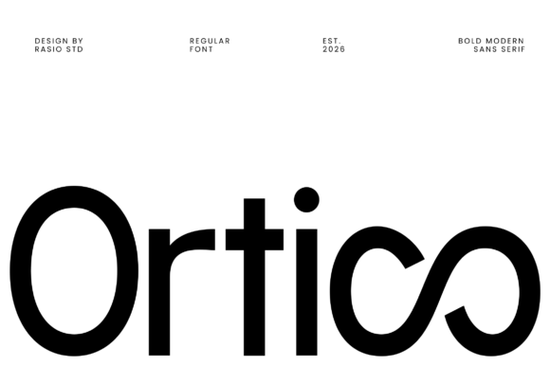
Looking for a clean, modern font that works well across digital and print projects? Ortico Font is a versatile sans serif typeface designed with clarity and balance in mind. It’s built around geometric shapes, consistent stroke weights, and open letterforms that make it easy to read at any size. Whether you're designing a logo, crafting social media graphics, or laying out product packaging, Ortico brings a polished, professional look without needing extra effort.
What makes Ortico Font stand out?
Unlike many fonts that feel too rigid or too casual, Ortico strikes a thoughtful balance. Its uniform strokes and generous spacing help text breathe especially important when you’re working with headlines or long-form content. The clean structure means it stays legible even when scaled down for mobile screens or small print.
The bold character shapes are perfect for making titles pop, while the subtle details keep supporting text readable. This combination makes it ideal for brands that want consistency across platforms from websites and apps to flyers and Instagram posts.
Where can you use Ortico Font effectively?
- Brand identities: Create a strong visual voice for startups, tech companies, or lifestyle brands.
- Website interfaces: Use it in buttons, menus, and headings for a modern, user-friendly feel.
- Packaging & print: Works beautifully on labels, boxes, and brochures thanks to its crisp lines.
- Social media content: Stand out in feeds with clear, eye-catching text that doesn’t overwhelm.
- Print-on-demand designs: Great for T-shirts, mugs, and stickers where legibility matters.
Why designers trust Ortico Font
Many creatives choose Ortico because it performs reliably under pressure. You don’t need to tweak spacing or kerning much it just works. That saves time, especially when you’re handling multiple files or tight deadlines.
It also supports multiple languages and includes a full range of weights, which helps maintain visual harmony across different sections of your project. Whether you’re writing a product description or a headline, the font adapts naturally.
For those who love minimal design with purpose, Ortico fits right in. It’s not flashy, but it’s confident just like a well-designed interface or a thoughtfully laid-out brand guide.
How does Ortico compare to other popular fonts?
While fonts like Espresso bring warmth and texture, Ortico leans into precision and clarity. If you're after something that feels grounded and dependable, this is a solid choice. It’s less decorative than some options, but that’s part of its strength: it lets your message take center stage.
Final thoughts: Is Ortico right for your next project?
If you value clarity, consistency, and a modern look that doesn’t fade over time, yes Ortico Font is worth adding to your toolkit. It’s not flashy, but it’s reliable. It doesn’t demand attention, yet it holds its own in any layout.
Whether you're a small business owner, a crafty hobbyist, or a designer building client work, this font blends seamlessly into your workflow. No steep learning curve. Just good typography that gets the job done.